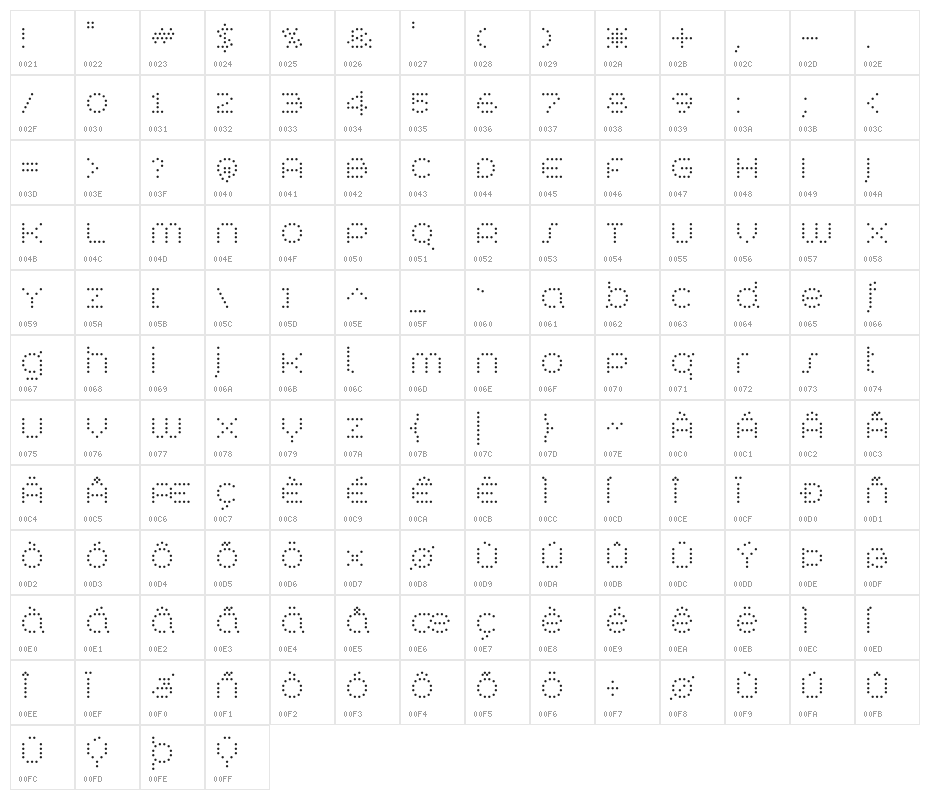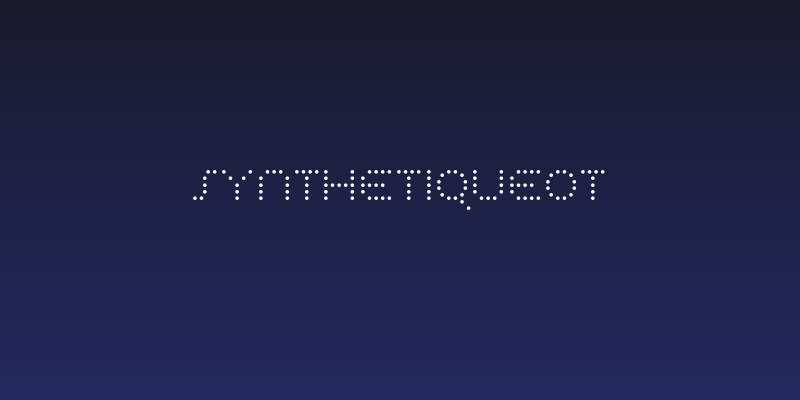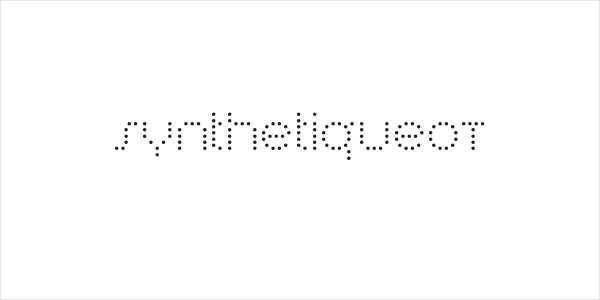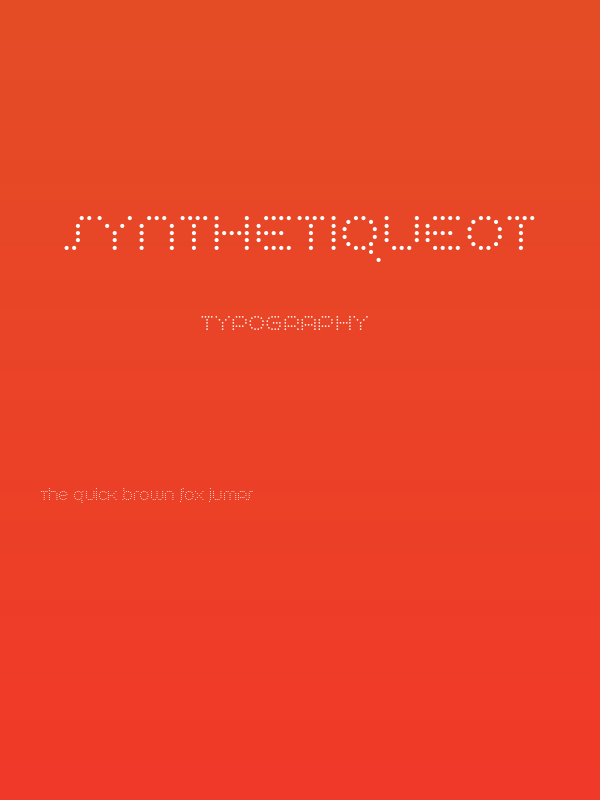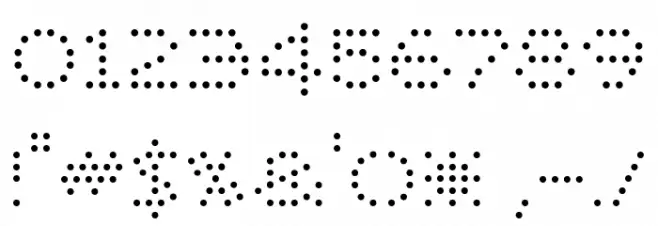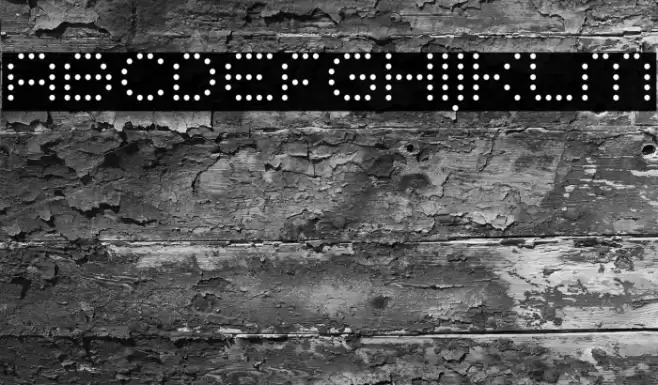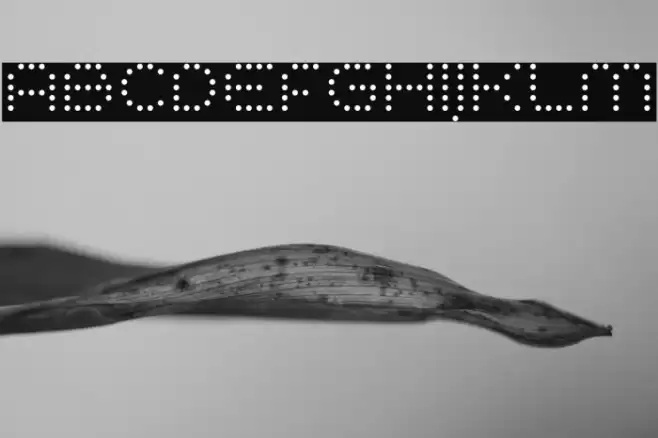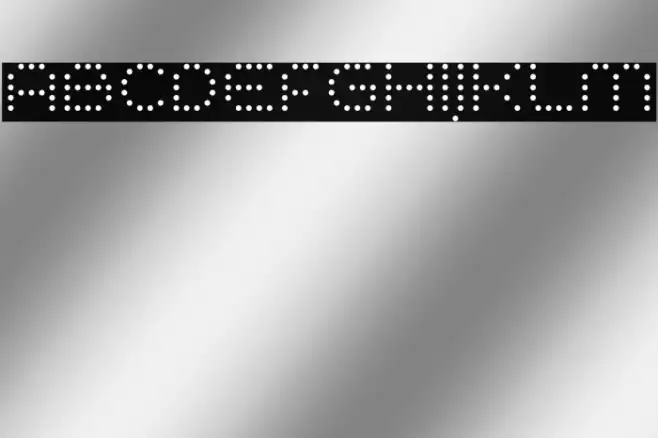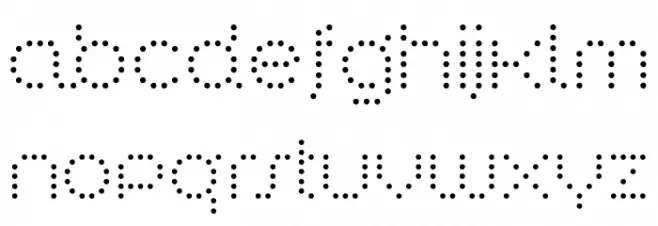
SynthetiqueOT Font
SynthetiqueOT Description
This font features a unique design composed entirely of dots, creating a digital and futuristic appearance. Each character is formed by a series of evenly spaced dots, giving it a pixelated look reminiscent of early digital displays or LED screens. The uniformity in the dot size and spacing provides a consistent and cohesive aesthetic across all characters. This style is both modern and playful, making it suitable for creative and tech-oriented projects. The font maintains readability despite its unconventional structure, with each letter and number clearly distinguishable.
| Use Case | Headlines, Logos, Creative projects |
| Proposed Projects | Ideal for tech-themed designs, digital art projects, futuristic branding, and creative posters. |